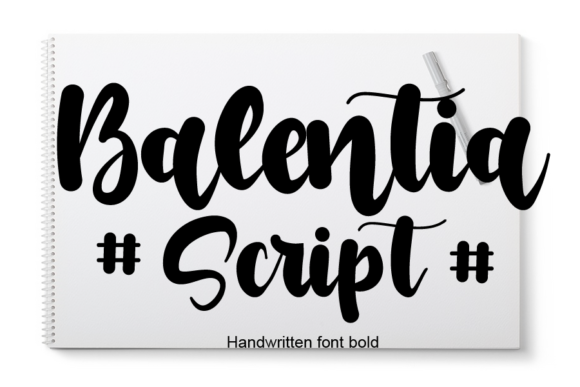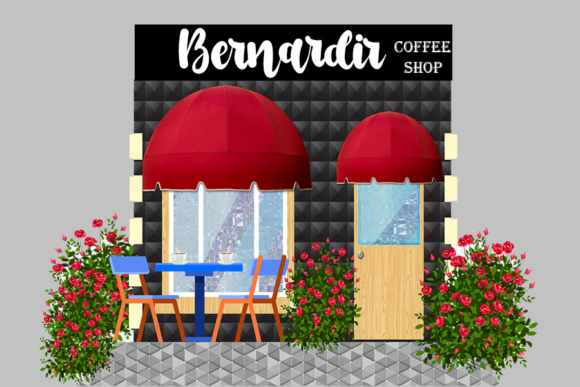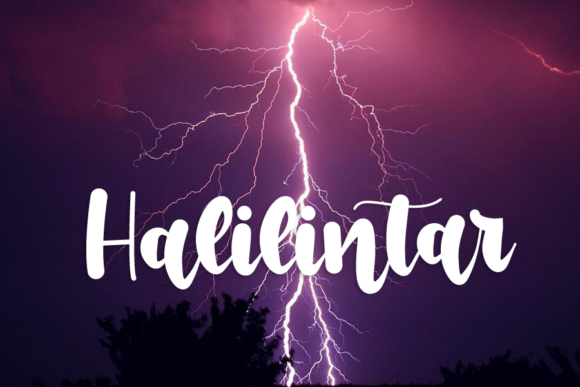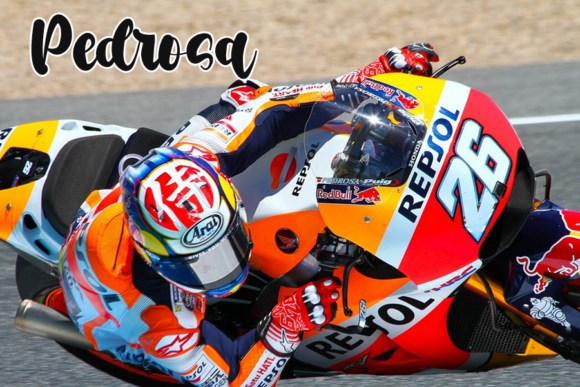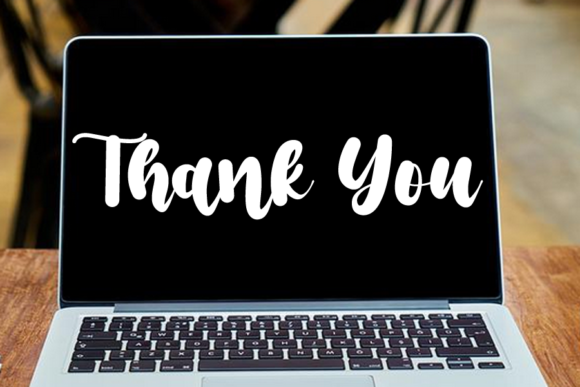
Balentia Font
About Balentia Font
Balentia is a chic, trendy and flowing handwritten font. It has beautiful and well balanced characters and as a result, it matches a wide pool of designs. This font is PUA encoded which means you can access all of the glyphs and swashes with ease.